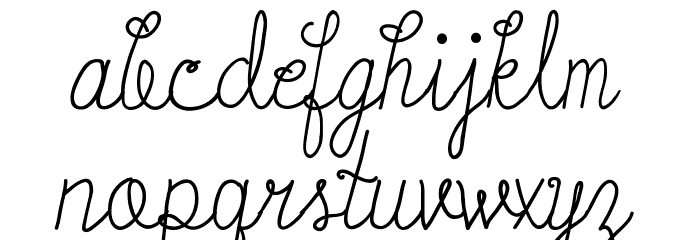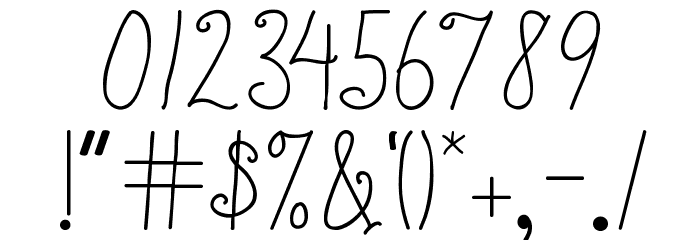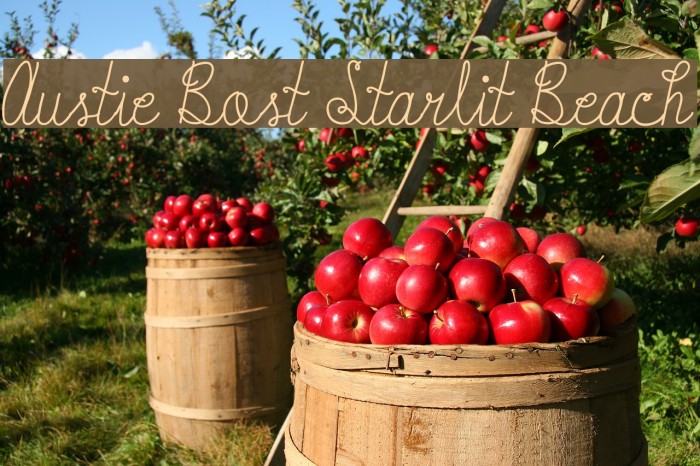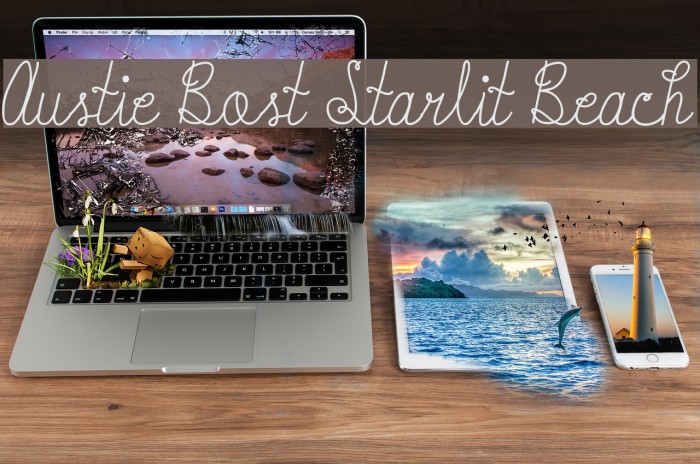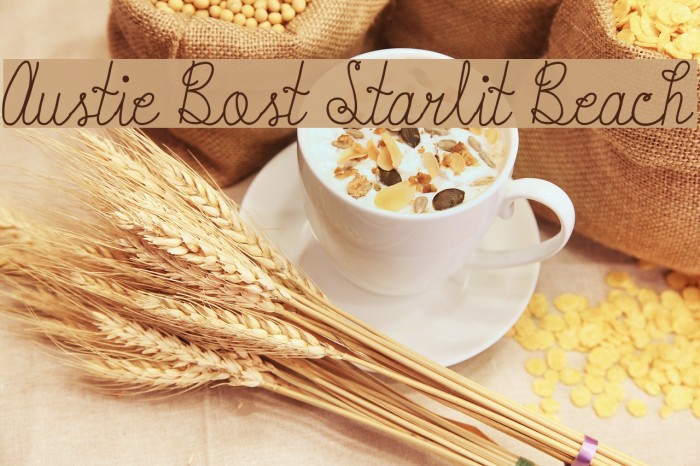
Austie Bost Starlit Beach Font
This font features a whimsical and playful script style, characterized by its flowing, interconnected letters. The uppercase letters are tall and elegant, with loops and curves that add a sense of movement and fluidity. The lowercase letters maintain a consistent style, with a slightly more relaxed and informal appearance. The numerals are clear and legible, matching the overall aesthetic of the font. Special characters are thoughtfully designed to complement the letterforms, ensuring a cohesive look. This font exudes a sense of fun and creativity, making it ideal for projects that require a personal and artistic touch.
A whimsical script font with flowing, interconnected letters and a playful style.
- Proposed Projects: Ideal for greeting cards, invitations, personal branding, and creative projects that require a touch of whimsy.
- Category: Script
- Use Case: Logos, Invitations, Greeting Cards